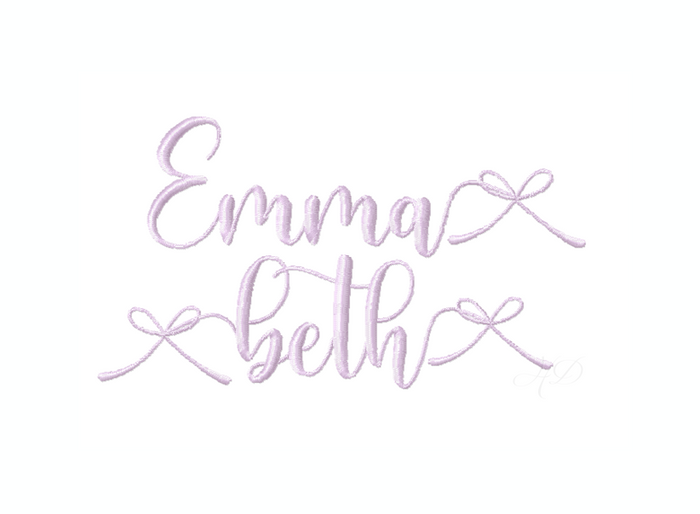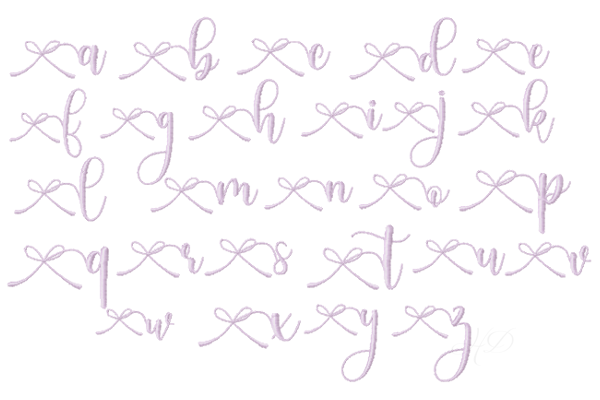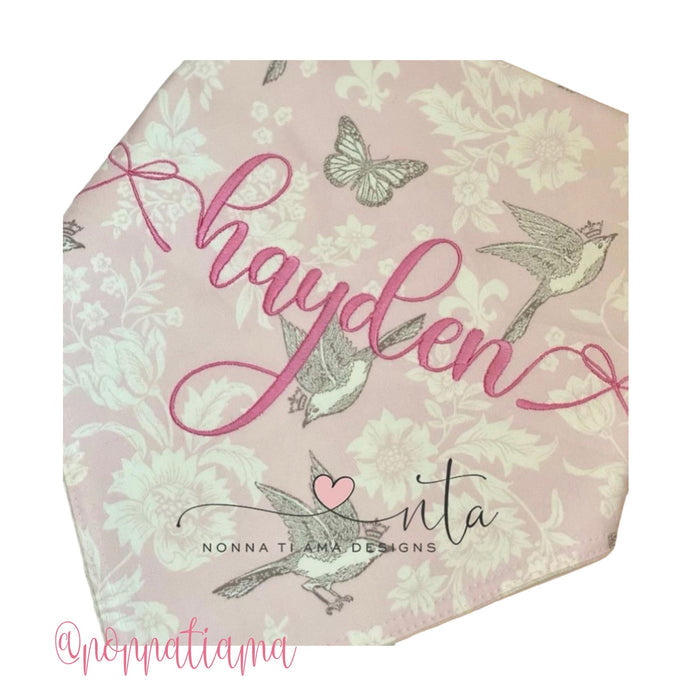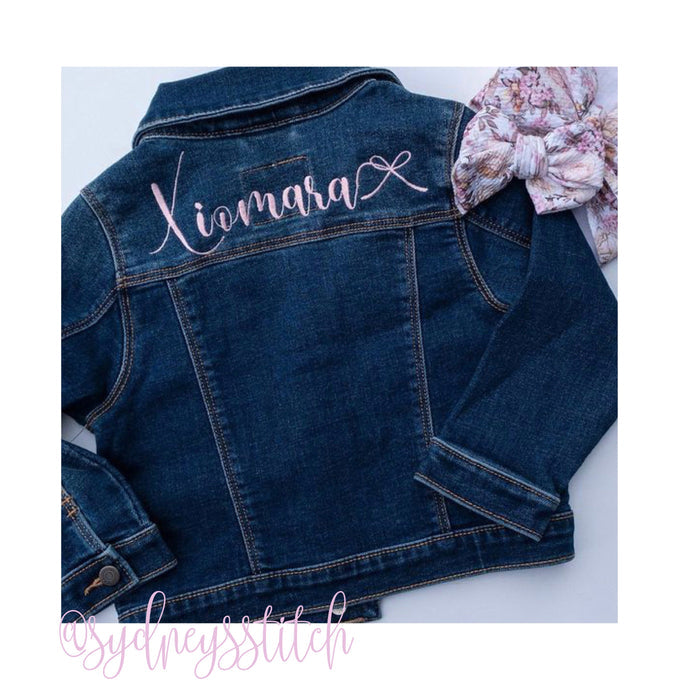
Emma Beth Bow Satin Embroidery Font
Unlock your creativity with the Emma Beth Bow Satin Embroidery Font, designed for personalized monogramming. This exclusive package provides three sizes — 1.5", 2", and 2.5" — allowing you to craft stunning designs tailored to your projects. Each size comes with 104 individual letters, including uppercase and lowercase options, complemented by 26 swash characters for added flair.